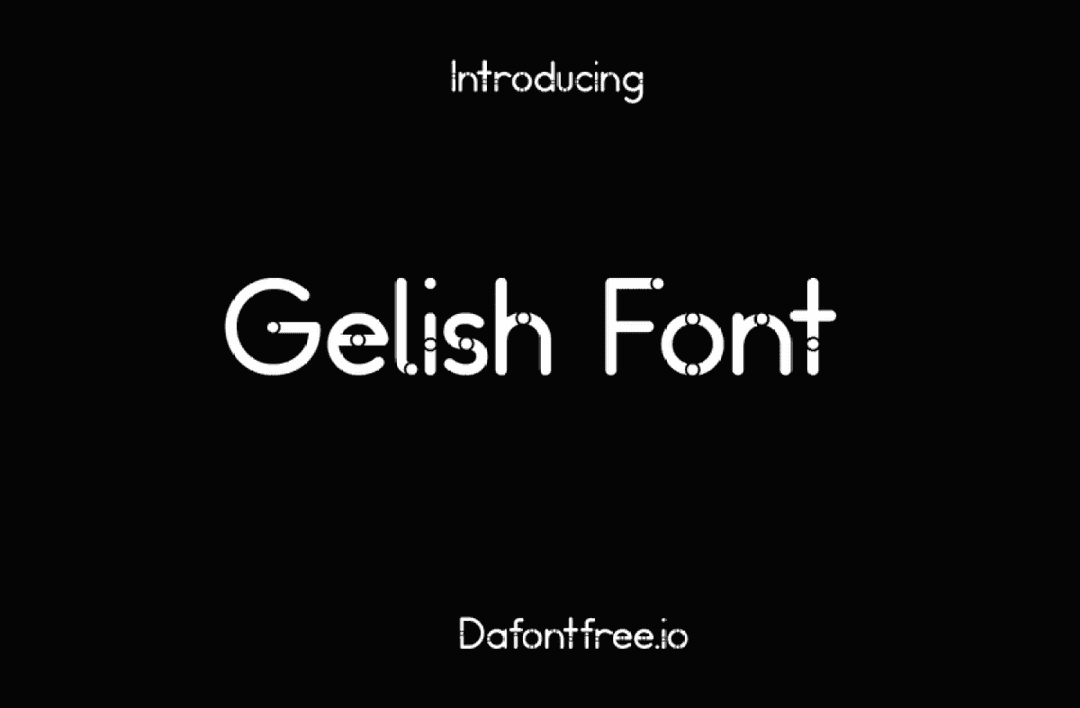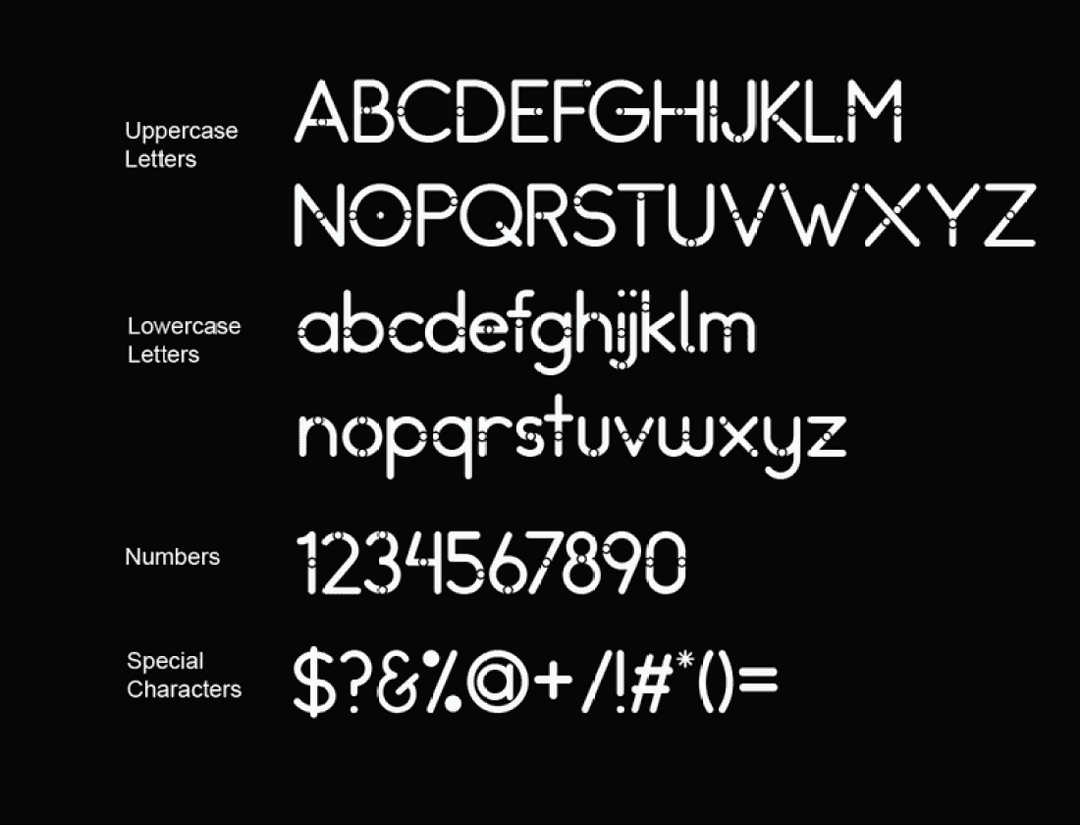
Discover Gelish Font, part of the Sans Serif collection—a versatile and unique font perfect for adding a personal touch to your projects. Download it for free and enjoy crafting designs with style, from invitations to social media posts. This font is available exclusively for personal use, giving you the freedom to create without limits. Unlock your creativity with Gelish Font today!
Gelish Here is a sans serif typeface with playful characters. Ideal for fun projects!